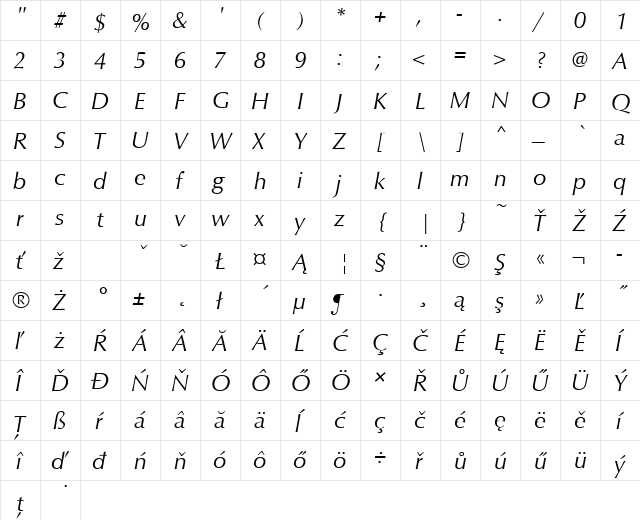
URWClassicoTEE Italic
Design Context for URWClassicoTEE Typeface
URWClassicoTEE wears its vintage influences proudly, with letterforms that recall mid-century signage, classic packaging, and nostalgia-driven design. The slanted form adds forward momentum and visual energy.
Ideal for diner signage, record shop branding, 70s/80s-themed projects, and heritage product labels.
Font Pairing: Combine URWClassicoTEE with a simple slab or neutral sans — period-accurate companions reinforce the vintage feel without competing for attention.
Pro Tip: Lean into URWClassicoTEE's period character by pairing it with aged paper textures, muted colour palettes, and vintage illustration styles.